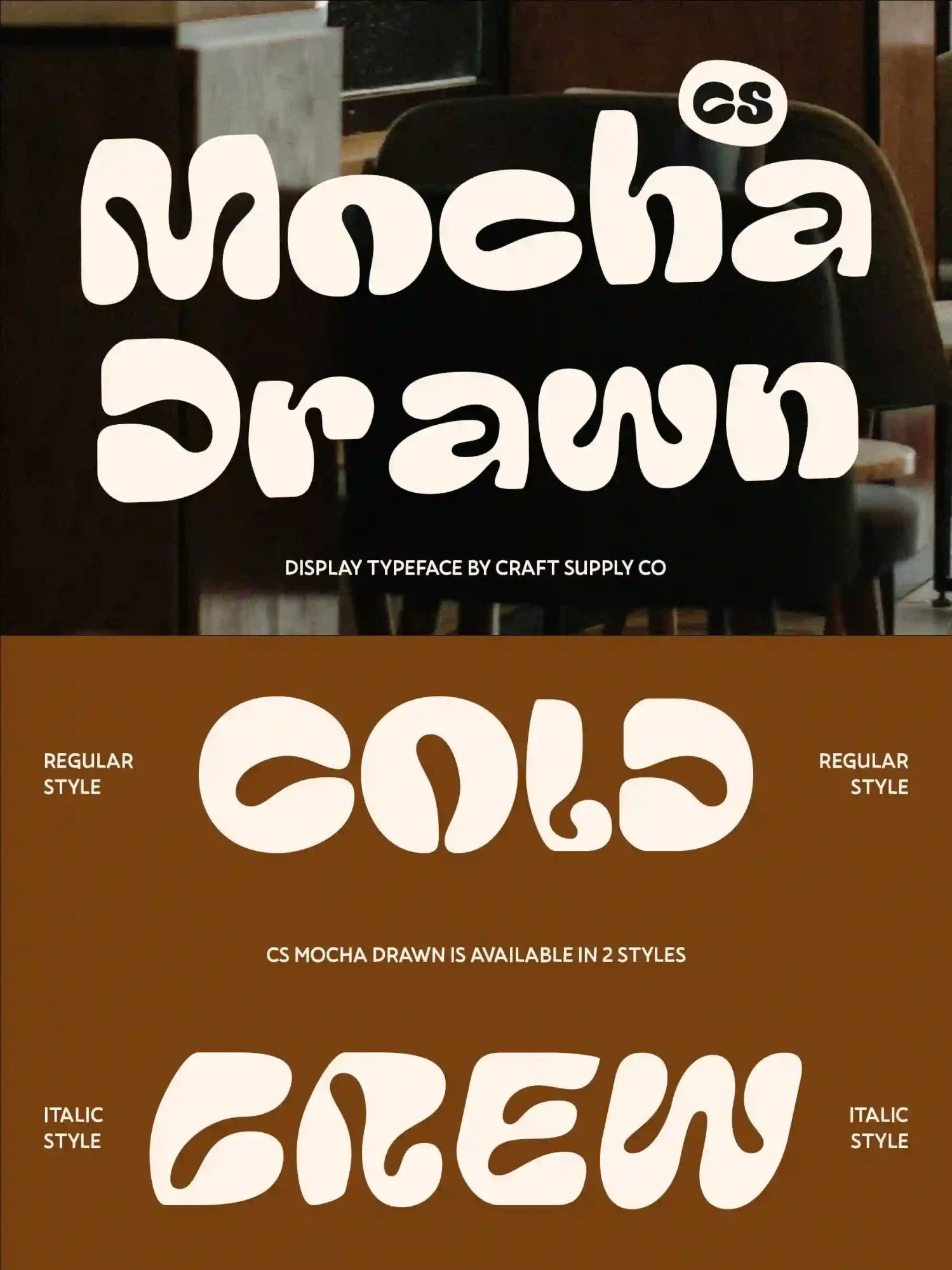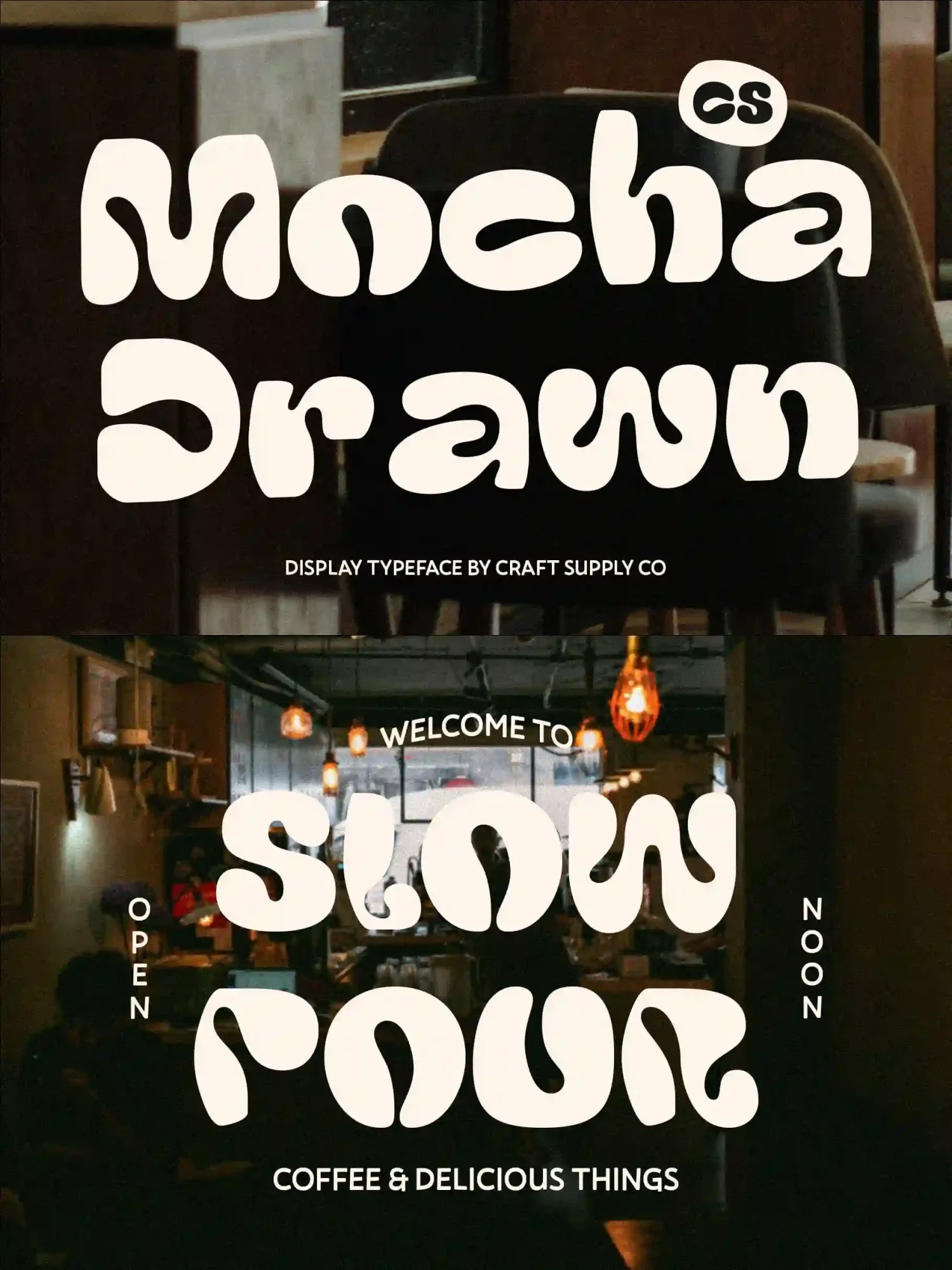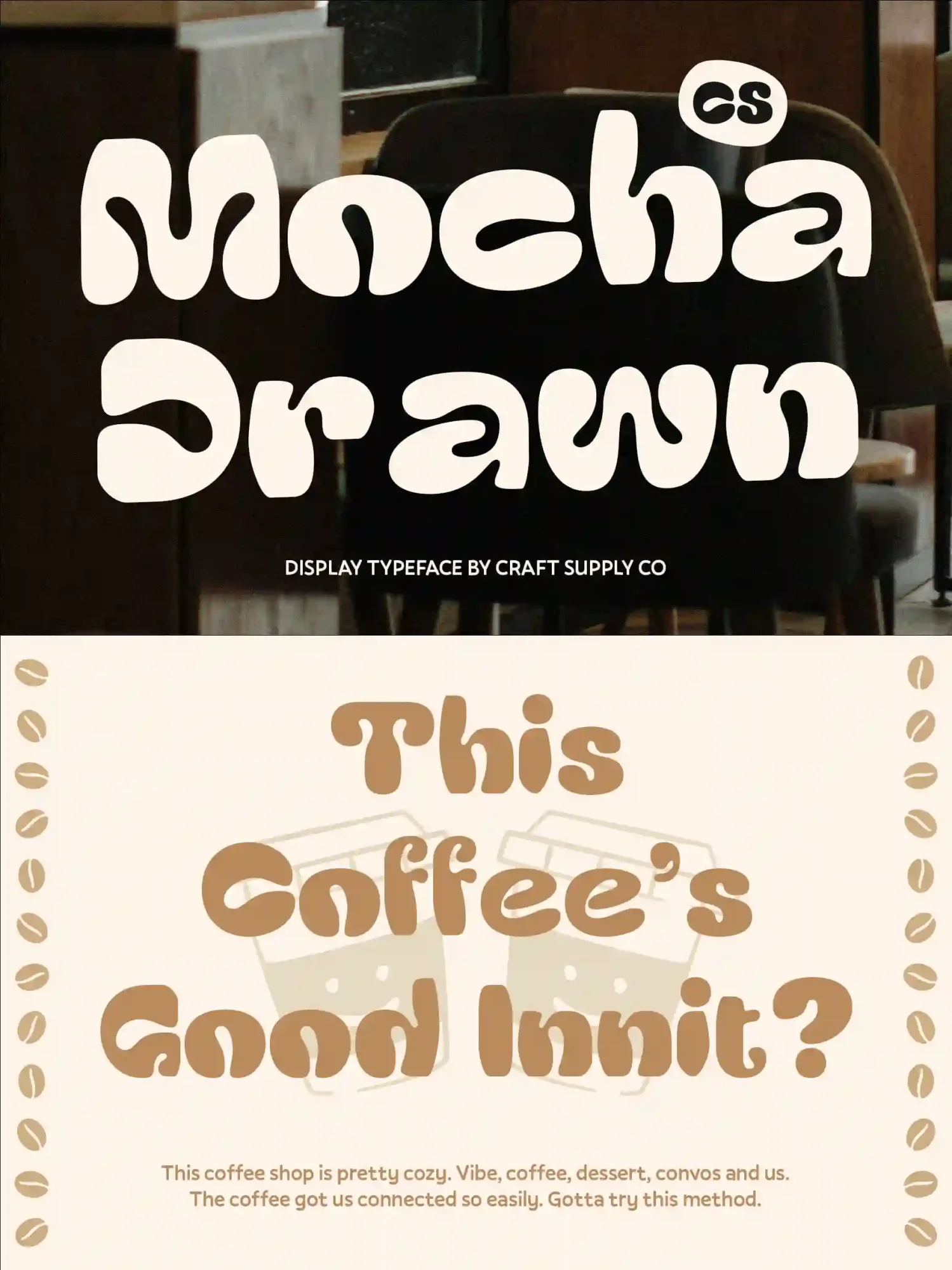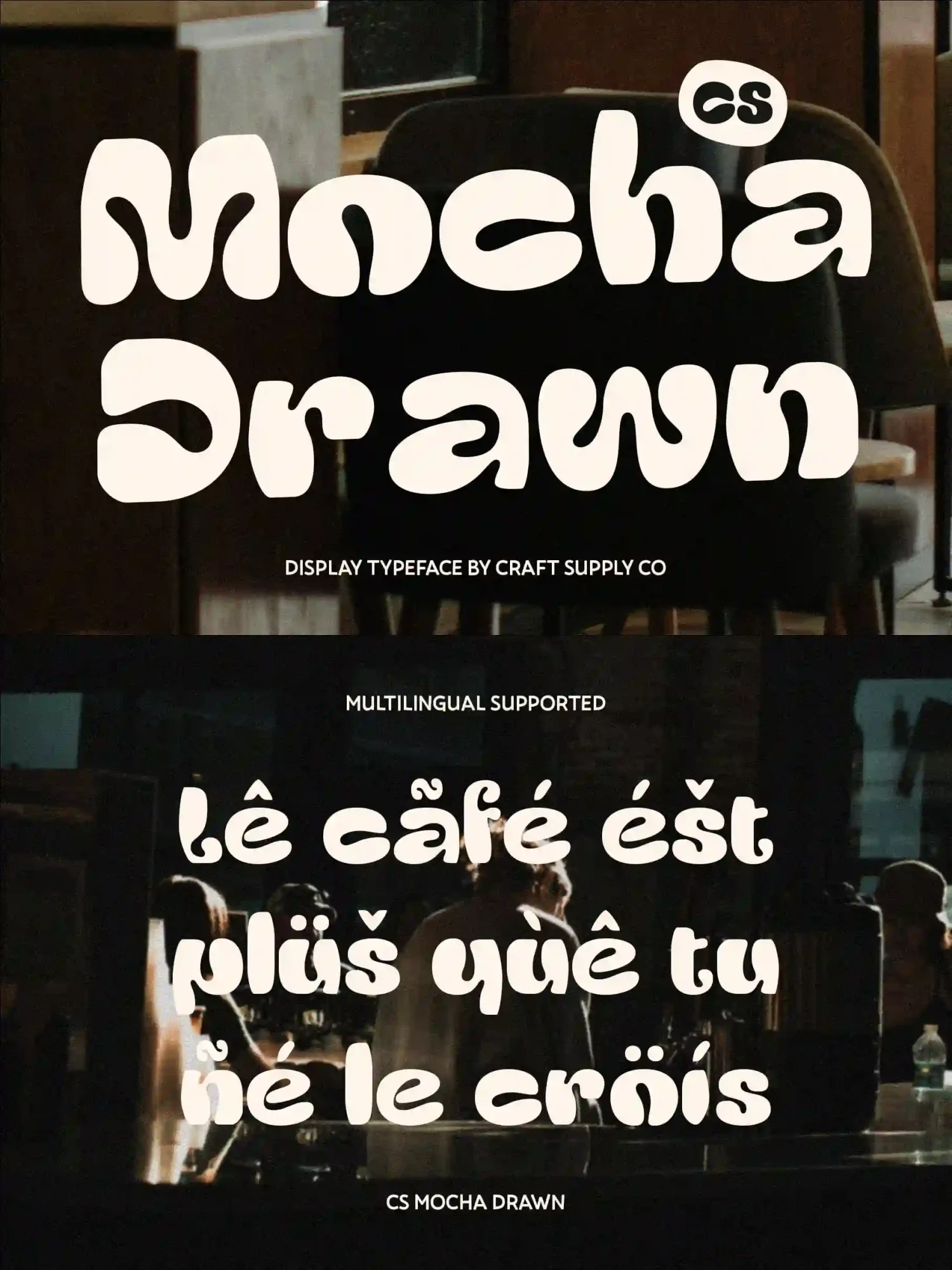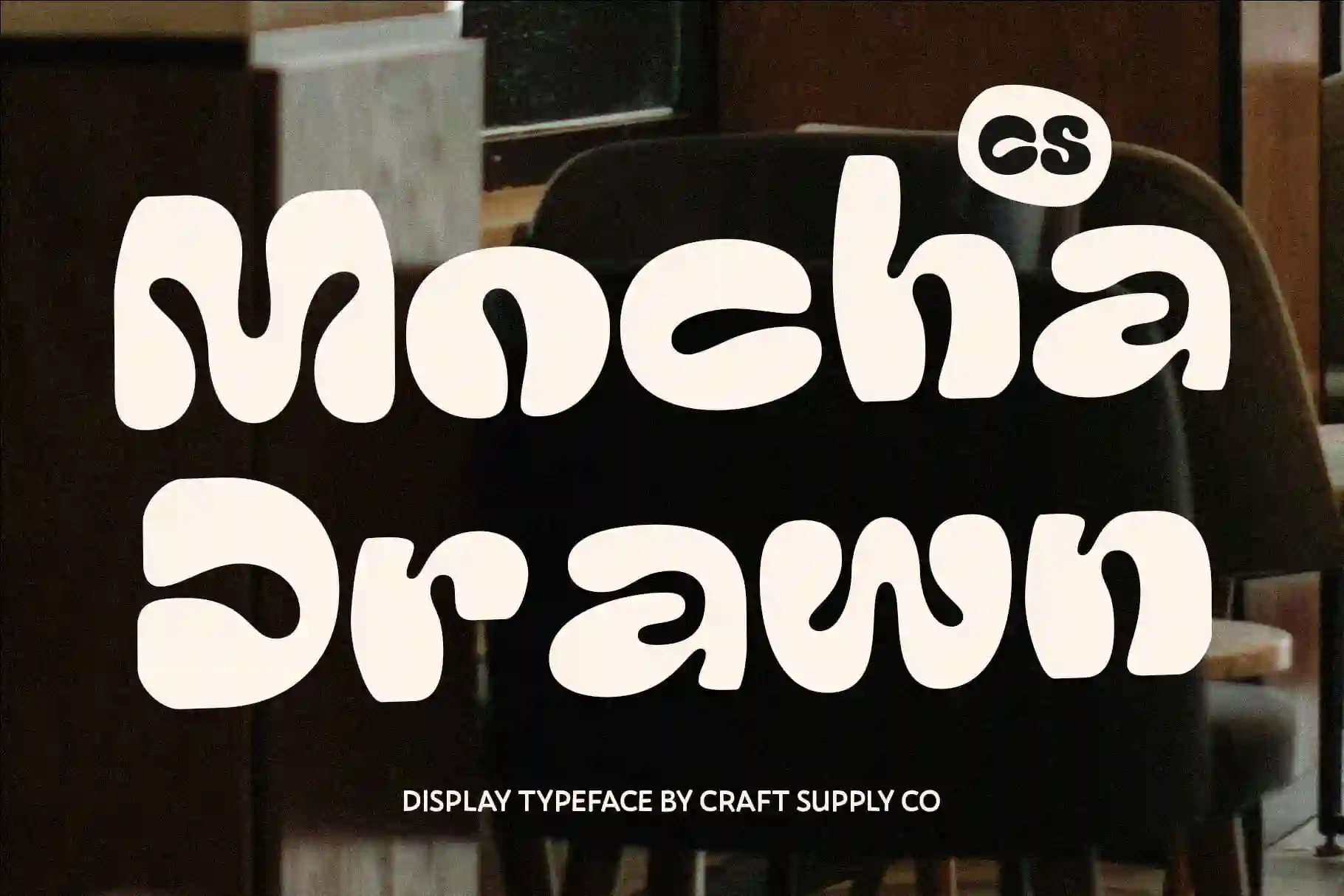
CS Mocha Drawn – Playful Coffee-Inspired Typography
Unique Coffee-Inspired Shapes
CS Mocha Drawn is a decorative display font designed with bold, rounded letterforms that resemble coffee beans. This creative touch gives the typeface a warm, fun, and quirky personality, instantly making it recognizable and full of character. Its chunky style makes text appear lively and dynamic, while maintaining a bold visual presence.
Hand-Drawn Texture for Organic Appeal
The drawn effect adds a handcrafted texture that feels authentic and artistic. Instead of looking too polished or mechanical, this casual and friendly font embraces imperfection, offering a handmade quality that feels friendly, natural, and approachable. This artisanal vibe enhances its expressiveness and sets it apart from standard display fonts.